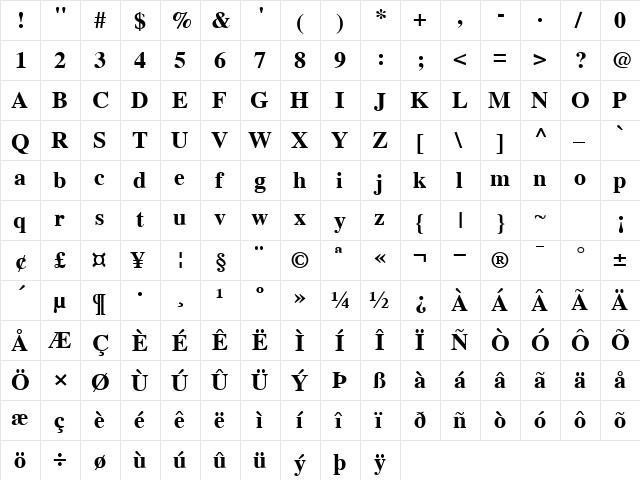
Tribune Bold Font Preview
Tribune Bold
Tribune Bold Font Details
Design Context for Tribune Typeface
Tribune takes a measured approach to typography — its balanced proportions and neutral character make it a reliable workhorse for both digital and print work. The heavy weight commands attention and anchors typographic hierarchies.